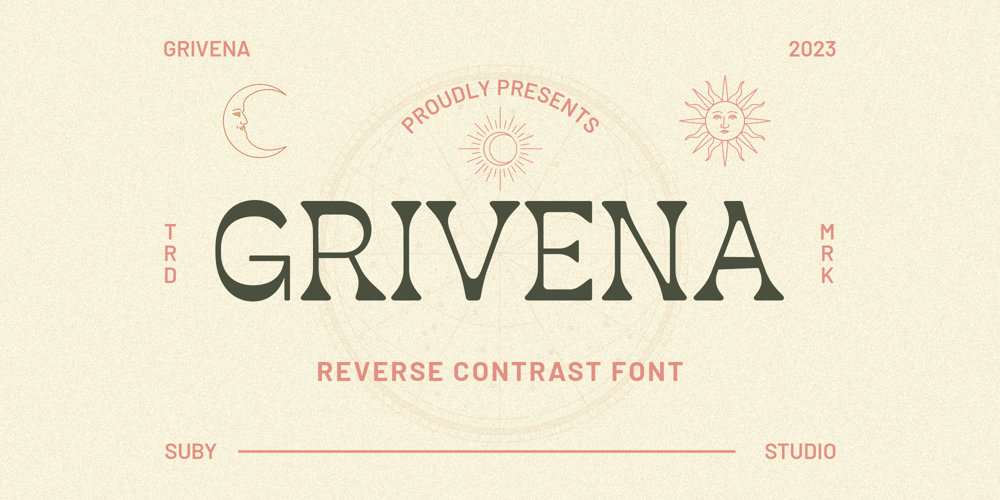
Grivena Font Family was designed by Teguh Subiyantoro and published by Suby Studio. Grivena contains 1 styles and family package options. Introducing our new ‘Grivena’ Reverse contrast Font with retro and playful. Perfect for branding, logos, invitation, and more.